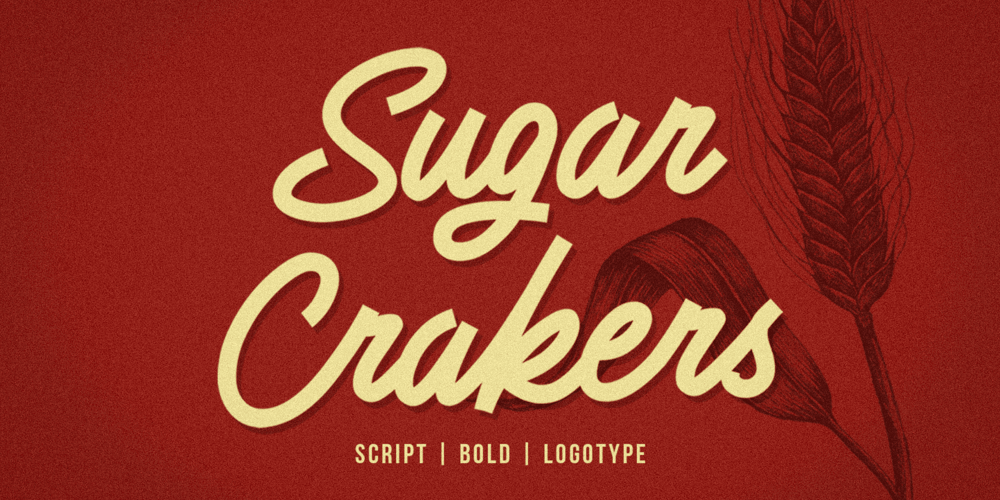
Sugar Crakers
Sugar Crakers font
Sugar Crakers Font Family was designed by Eko Kurniawan and published by Atom. Sugar Crakers contains 1 styles and family package options. Sugar Crakers is a bold signature font with pointed corners and supported with over 45 ligatures. Use your imagination to make company logos, product labels, headlines, and other designs that will make your designs come alive and become more selling points. Use Sugar Crackers for the success of your next project.